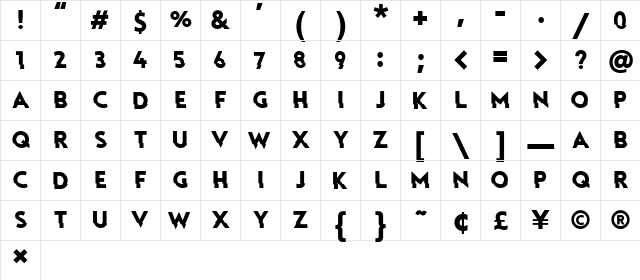
Tourmaline Glitch
| Style | Glitch |
| Foundry | Vincenzo Paolo Fraddosio |
| Designer | Vincenzo Paolo Fraddosio |
Design Context for Tourmaline Typeface
Tourmaline is a composed and adaptable typeface that performs quietly and consistently across a wide range of design contexts.